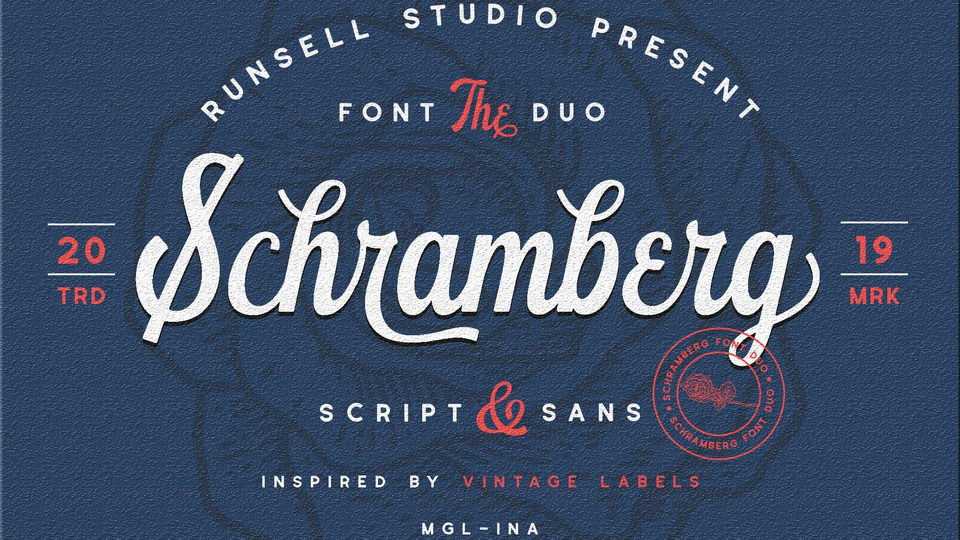
Download Schramberg font, a typeface inspired by vintage labels and combinating with modern design. Schramberg comes with script and sans serif to mix and match your vintage design, t-shirt, logo, labels, badges, posters and etc.
Designer: Runsell Studio